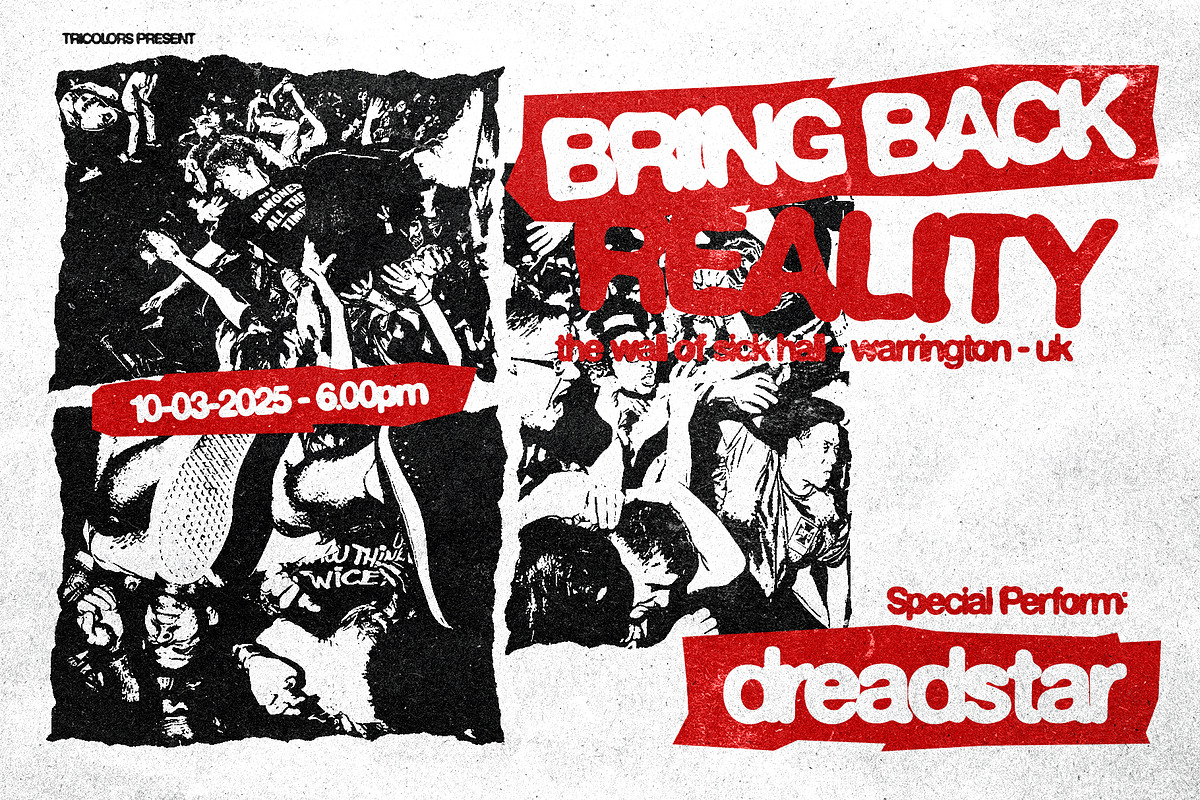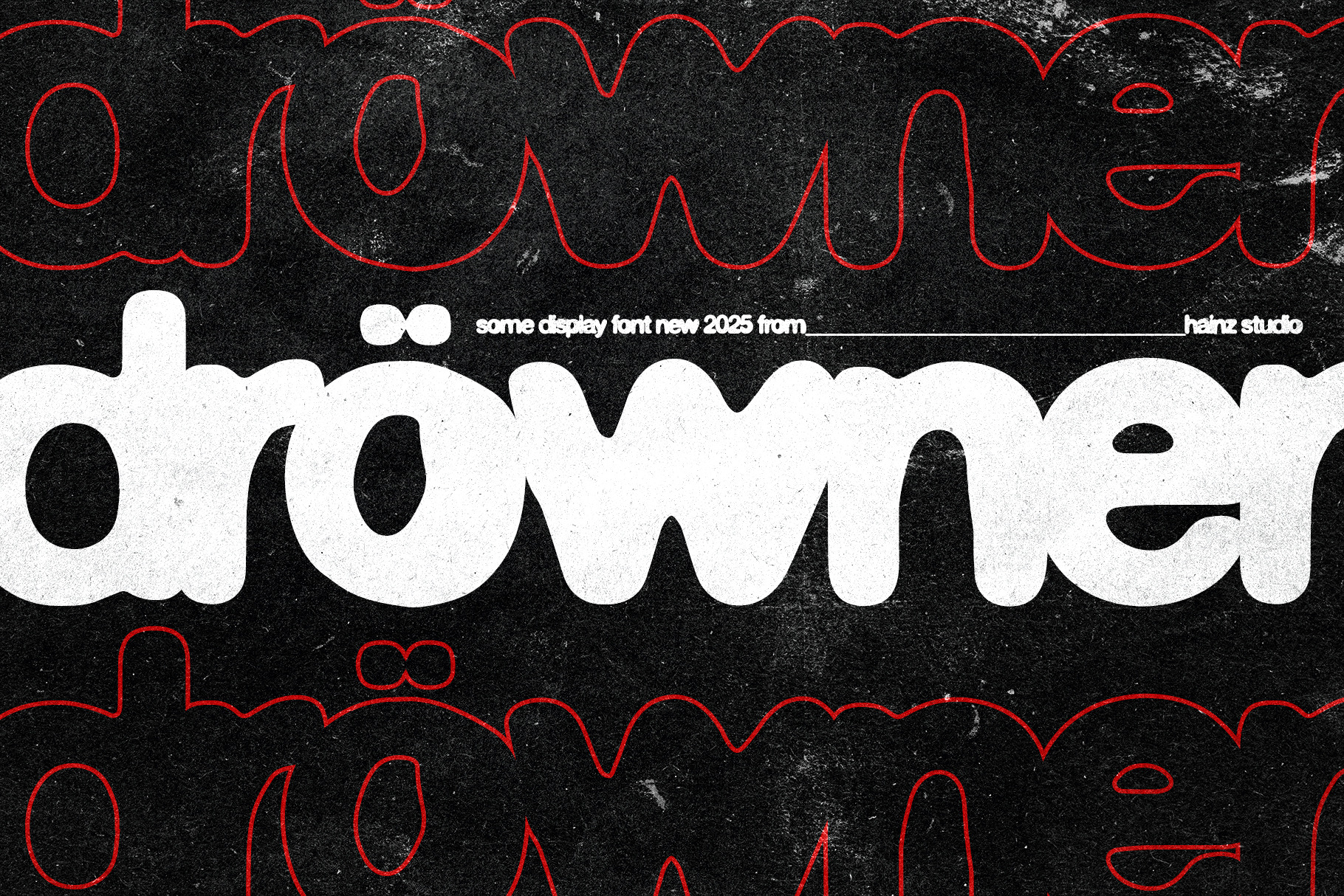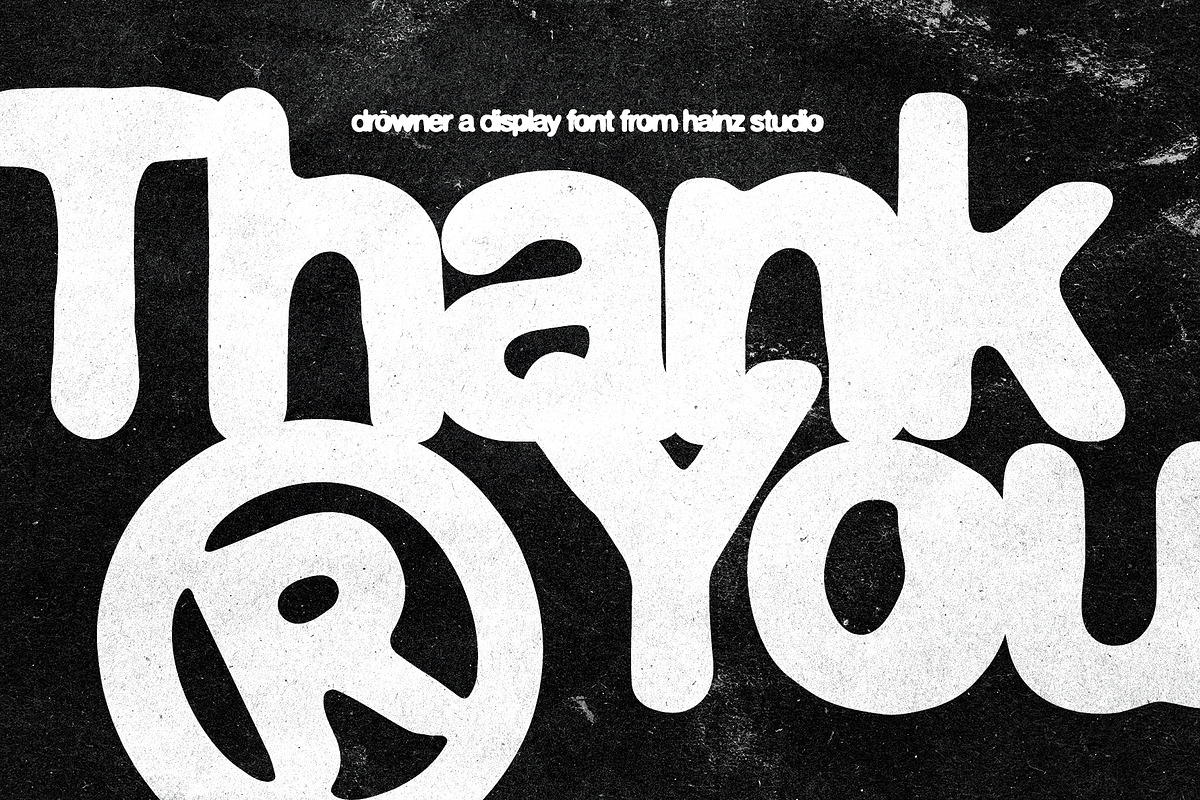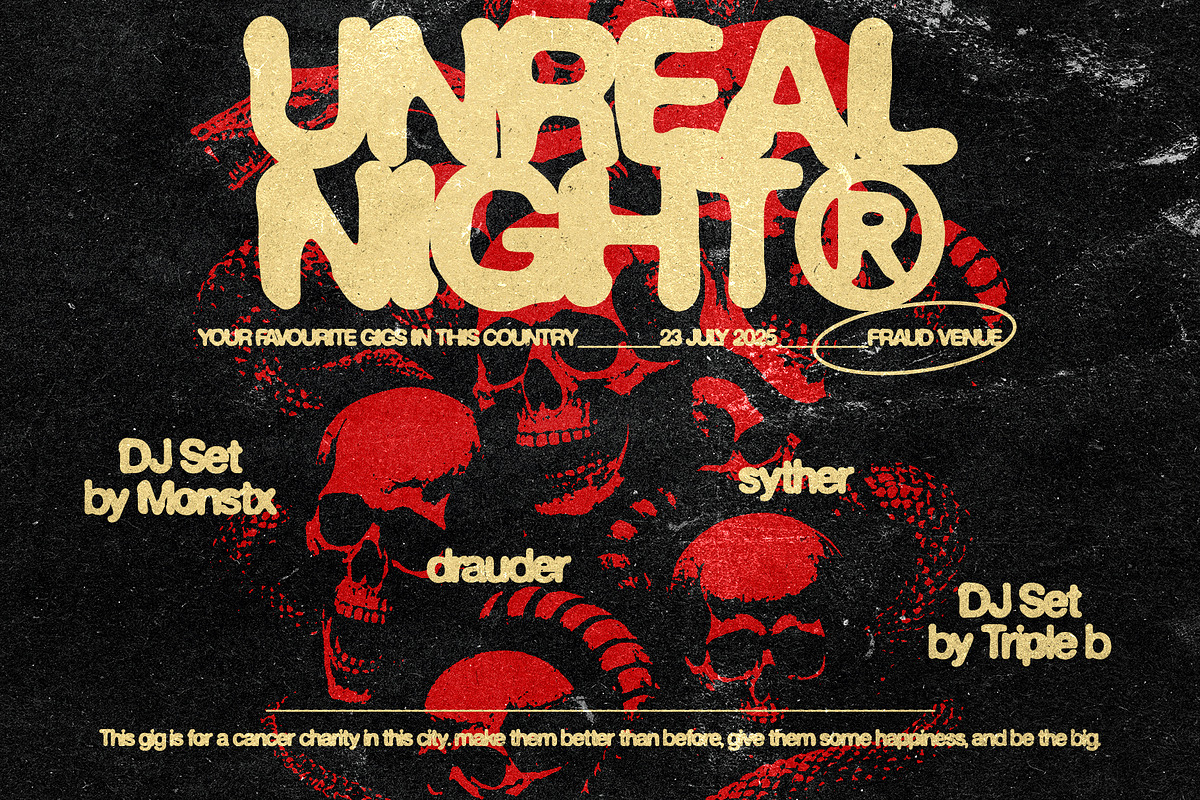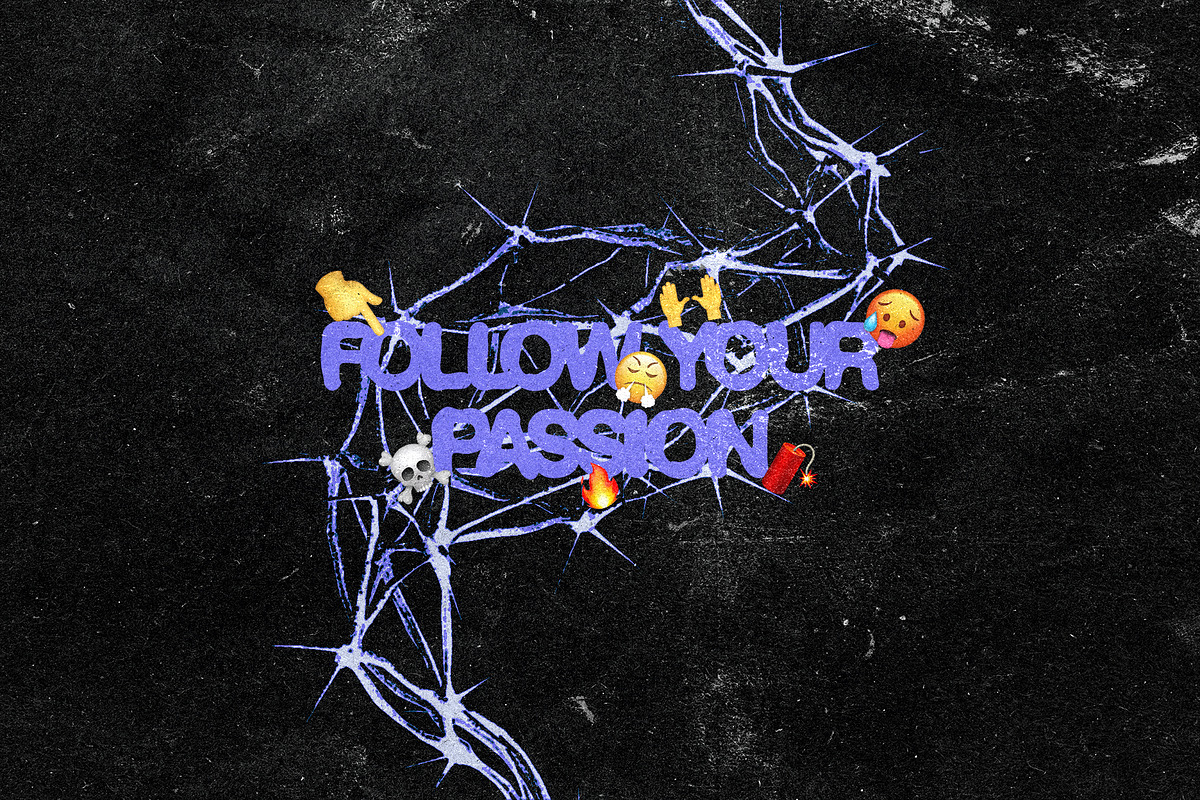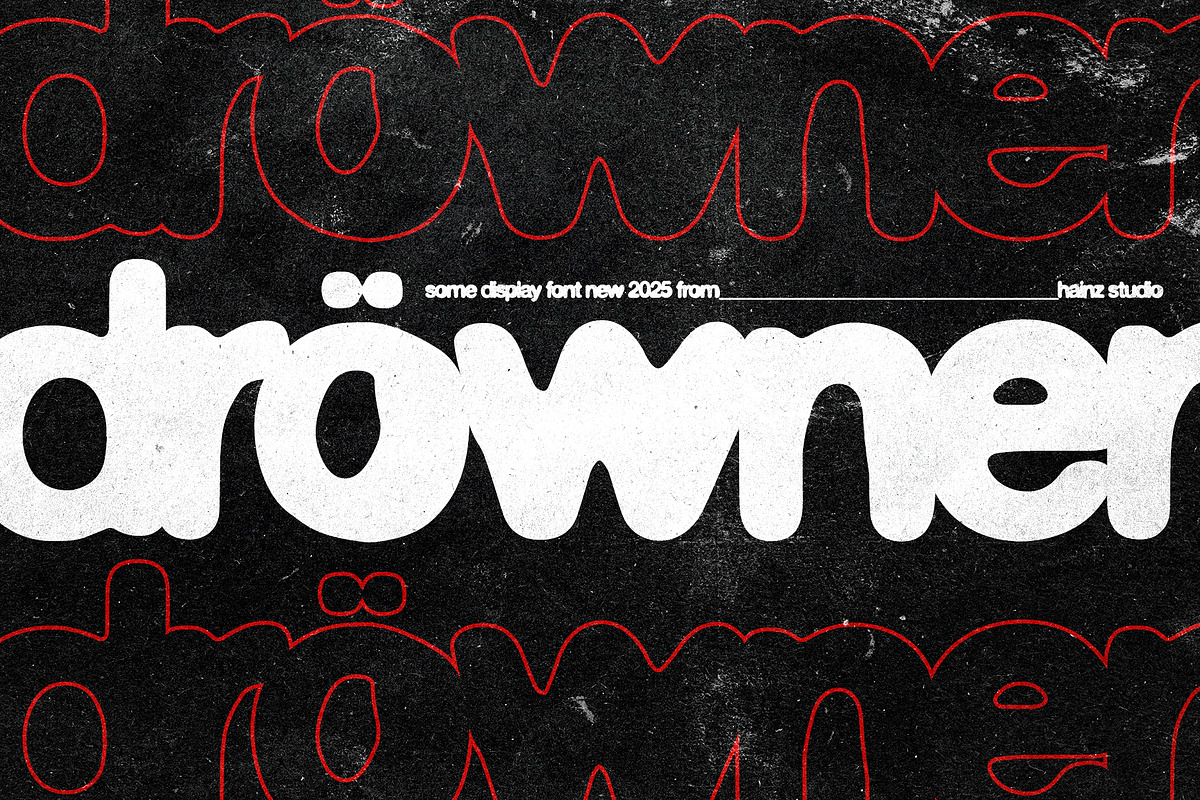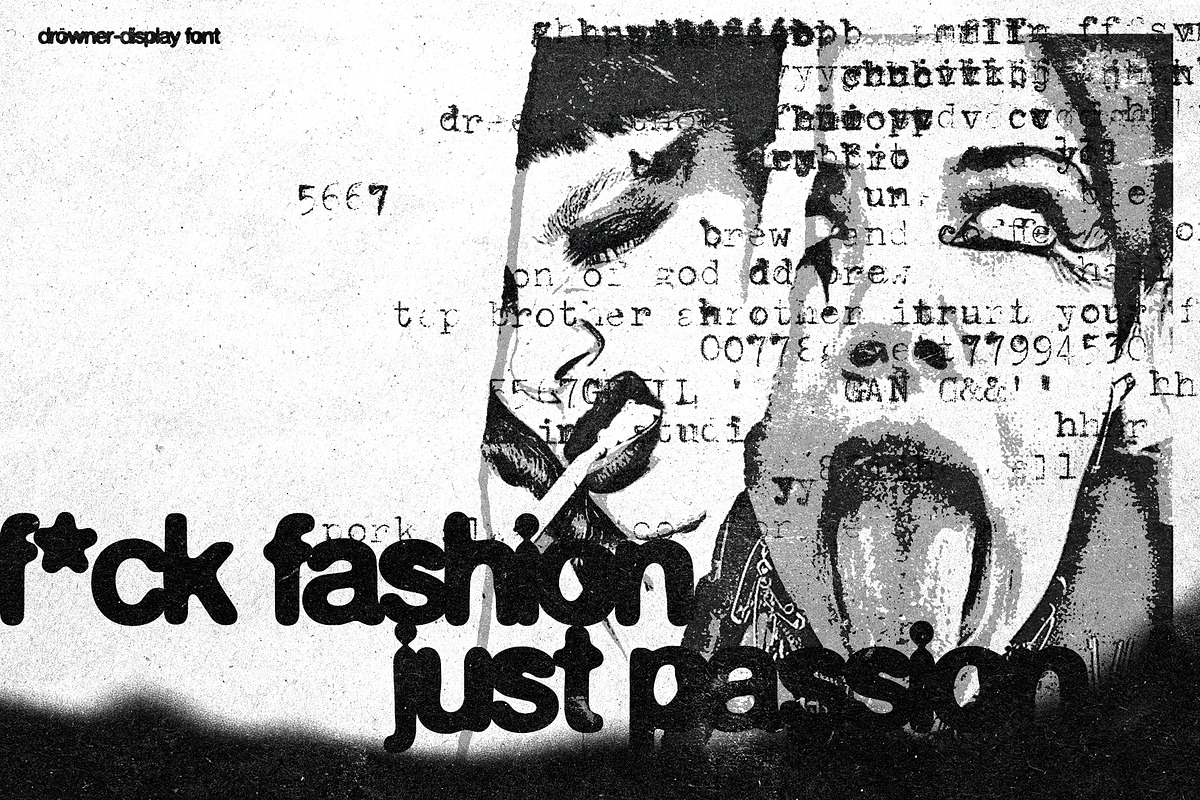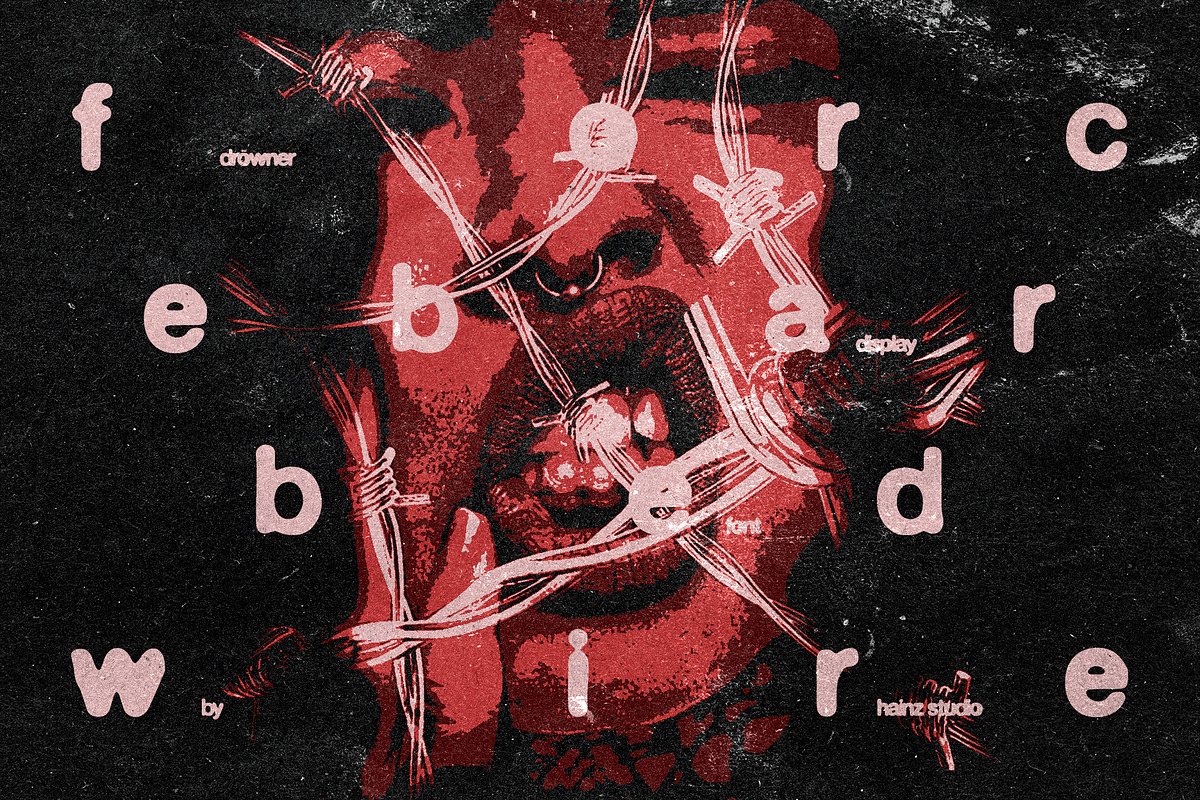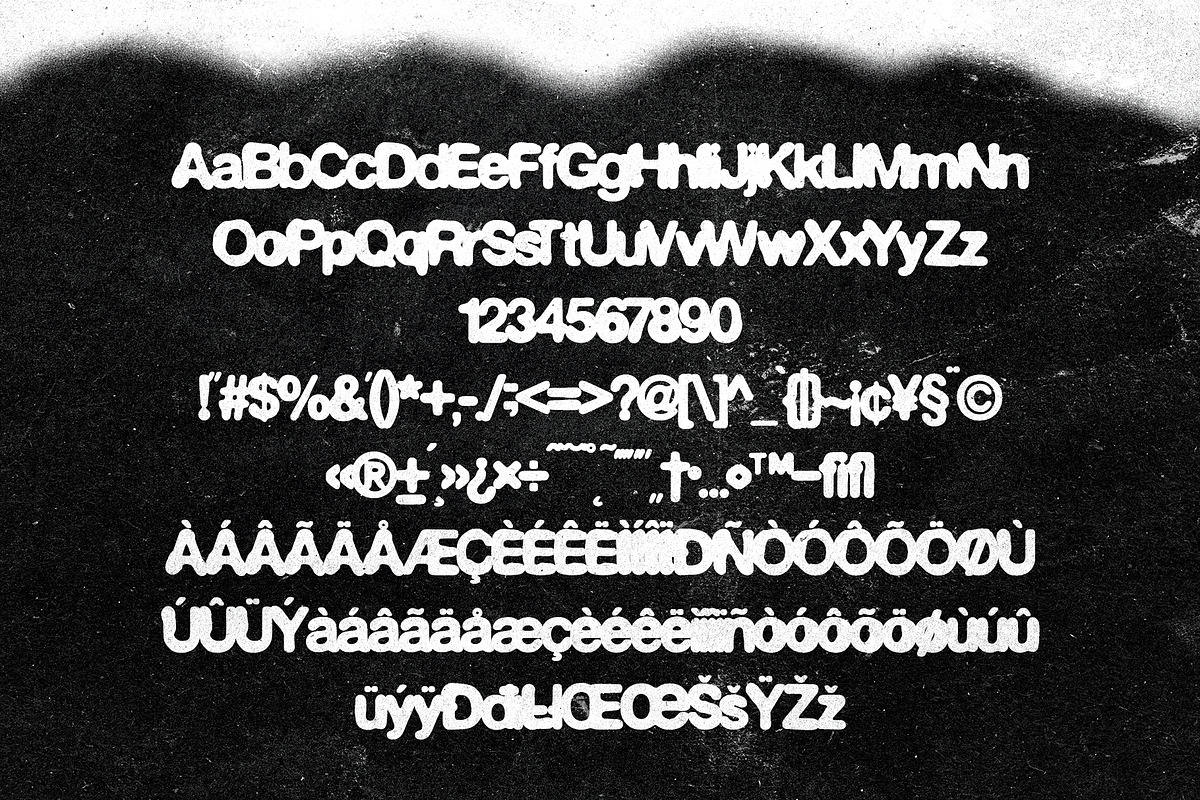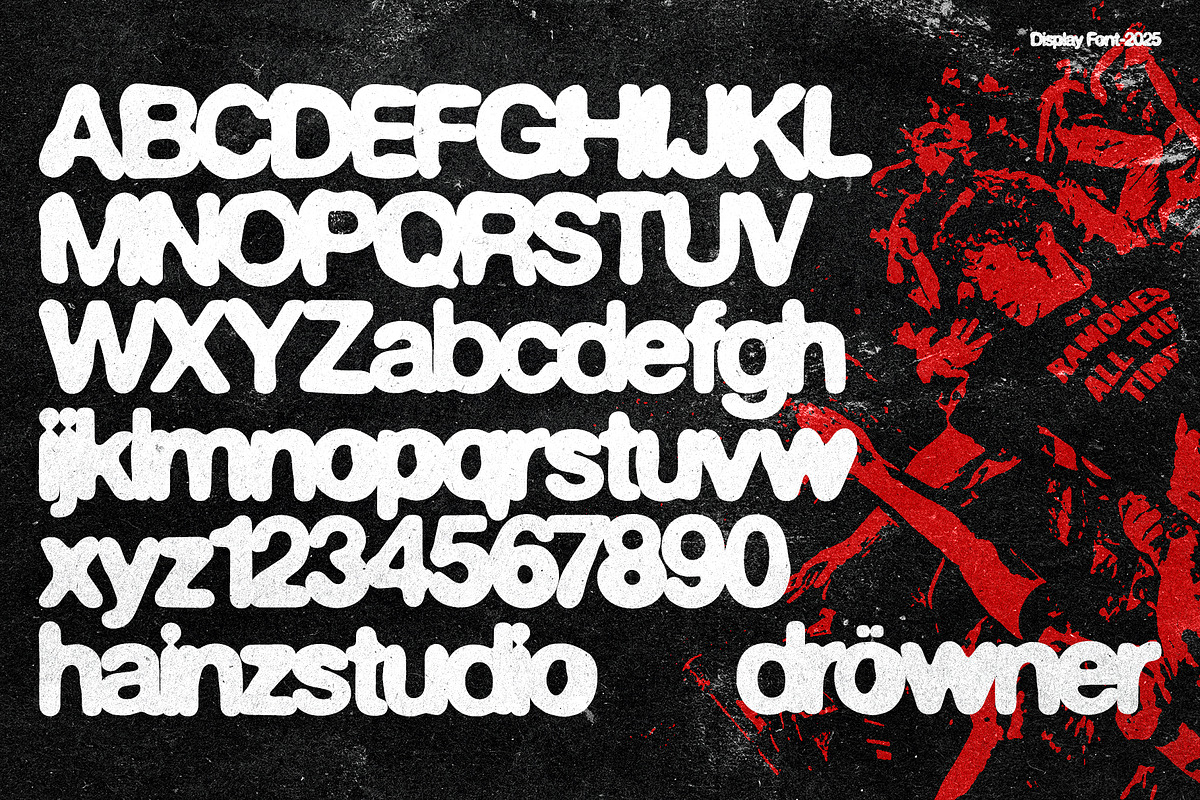
Drowner - Display Font
Drowner - Display font
This font is a bold and expressive typeface with a textured, distressed appearance, perfect for projects that demand a raw and edgy aesthetic. It includes a full set of uppercase and lowercase letters, numerals, punctuation, symbols, and a wide range of accented characters to support multilingual use. The gritty texture adds a unique visual impact, making it ideal for posters, album covers, branding, and other creative works that aim to stand out. Its design strikes a balance between readability and artistic flair, offering versatility for various applications.
- Support Multilingual
- Support Numeral, Punctuation and Symbols